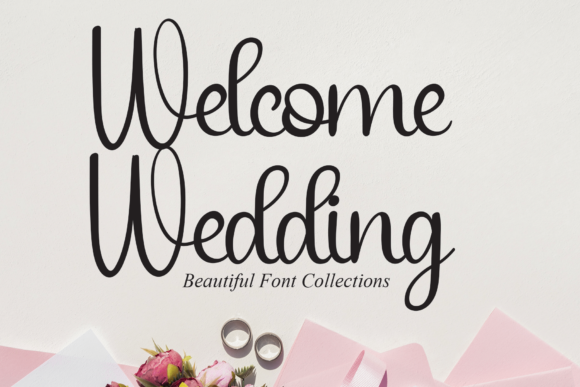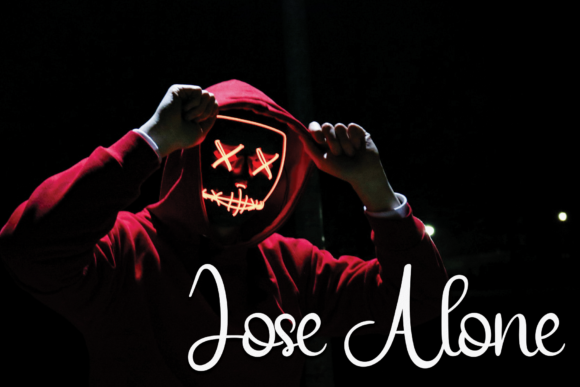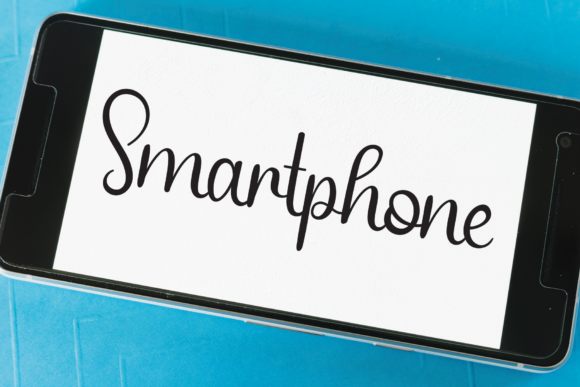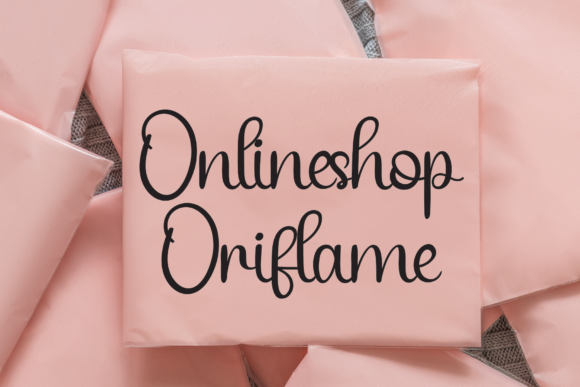
Writing Signature Font: Elegant Script for Creative Designs
The Writing Signature font is a captivating script typeface that brings elegance and sophistication to various design projects. Its meticulously crafted letterforms make it an ideal choice for adding a refined touch to creative endeavors.
Versatility in Design Applications
This elegant script shines in social media posts, creating visually appealing content that stands out in crowded digital landscapes. For DIY projects, Writing Signature transforms ordinary designs into artistic creations, adding a sense of craftsmanship to invitations and greeting cards.
Branding and Logo Design with Writing Signature
In branding and logo design, this font lends a sense of prestige. Its sophisticated letterforms create memorable brand identities, leaving a lasting impression on clients and customers. The flowing script of Writing Signature can elevate a company’s visual identity, making it appear more upscale and professional.
Enhancing Communication with Writing Signature
Quotes and inspirational messages gain eloquence when styled with this font. The script enhances the emotional impact, making words more meaningful and resonant. Writing Signature’s graceful curves and ligatures can turn even simple phrases into visually striking statements.
Editorial and Publishing Applications
This elegant typeface excels in editorial projects such as book covers and magazine layouts. Its refined appearance adds allure and sophistication to overall designs. Writing Signature can be particularly effective for titles and headings, drawing the reader’s eye and setting the tone for the content.
Wedding and Event Stationery
For wedding invitations and event stationery, Writing Signature offers a perfect blend of formality and personal touch. Its romantic flair makes it an excellent choice for save-the-dates, place cards, and other wedding-related materials.
Digital and Print Versatility
While Writing Signature shines in print applications, it’s equally effective in digital designs. From email signatures to website headers, this font maintains its elegance across various screen sizes and resolutions. Its legibility at different sizes makes it a versatile choice for both large display text and smaller body copy.
Pairing with Other Fonts
Writing Signature pairs well with a variety of other fonts, making it a flexible option for designers. It can be combined with clean sans-serif fonts for a modern look or paired with serif fonts for a more traditional aesthetic. This versatility allows designers to create diverse and engaging layouts.
Conclusion: A Font for Artistic Expression
The Writing Signature font brings elegance to every creative idea it graces. From social media and DIY projects to branding and editorial design, this script typeface transforms projects into captivating pieces that inspire. Its blend of classic calligraphy and modern design makes it a timeless choice for designers looking to add a touch of sophistication to their work.